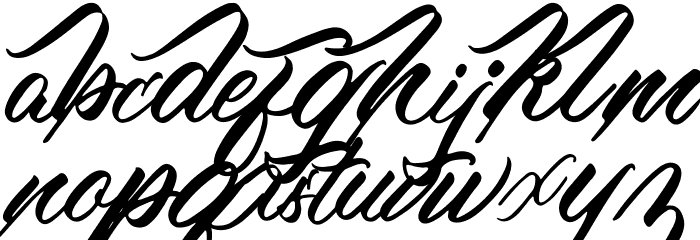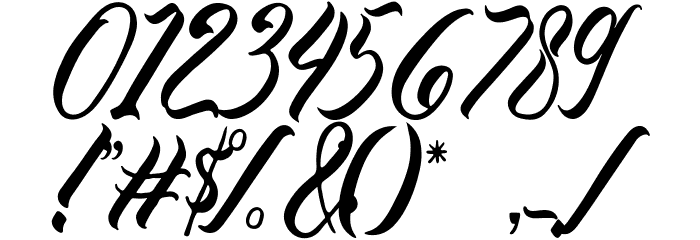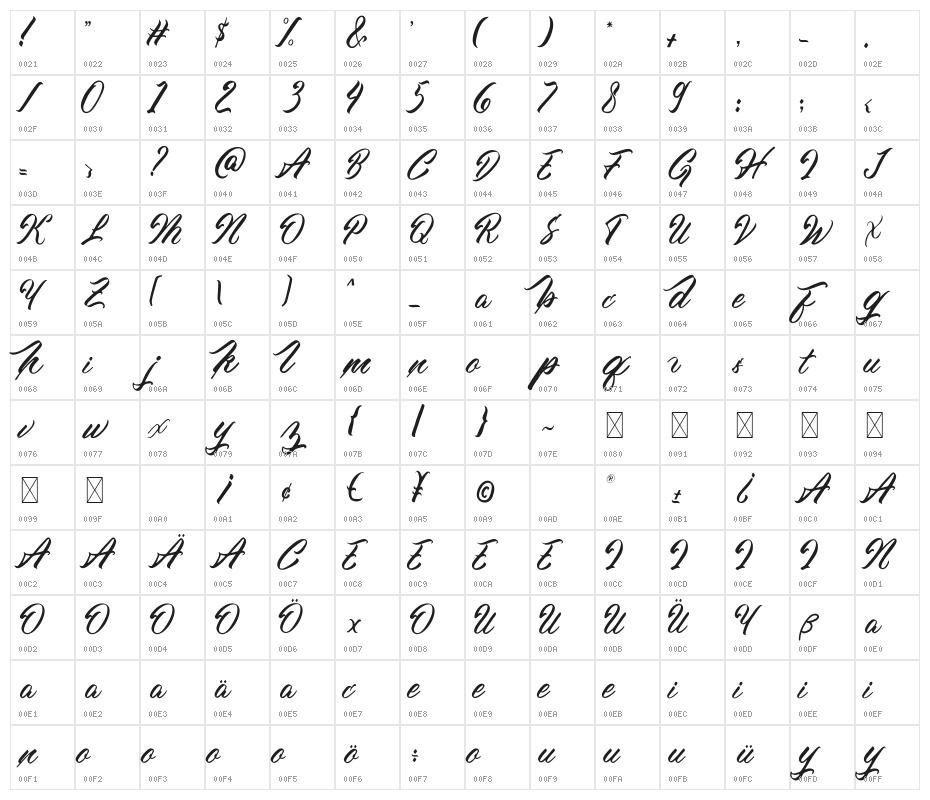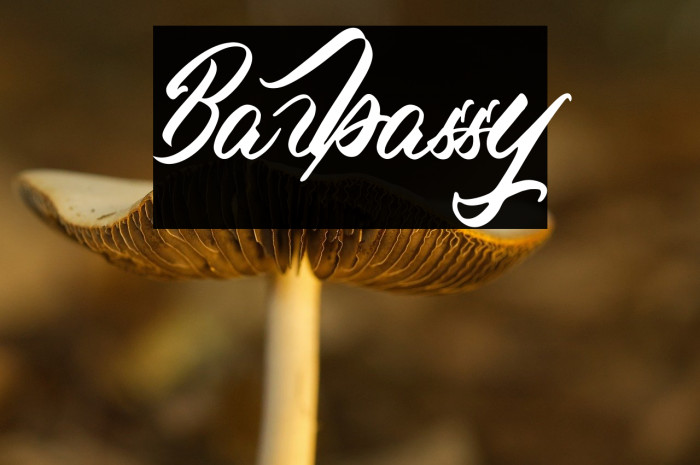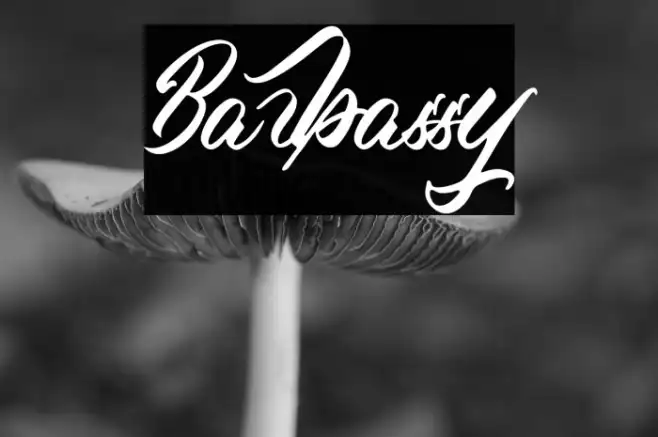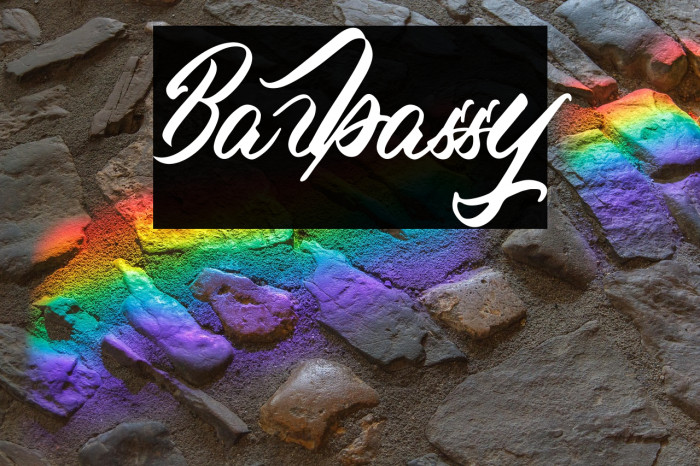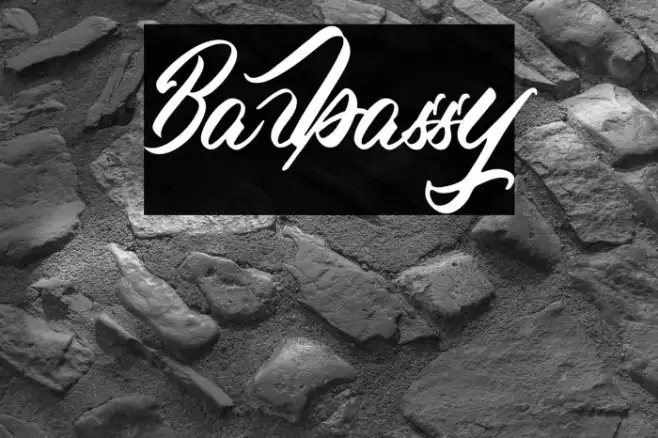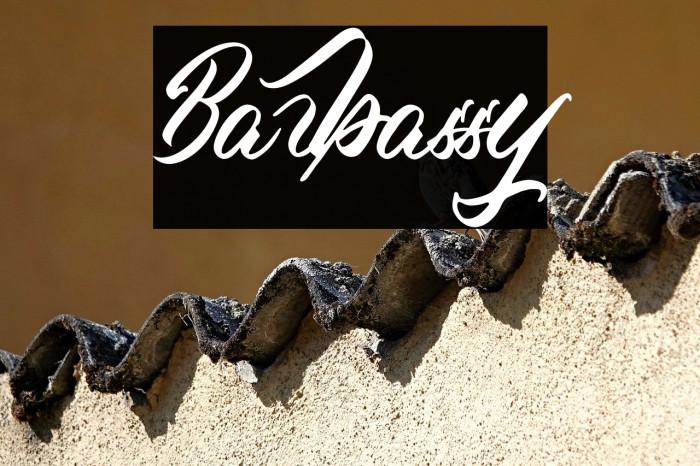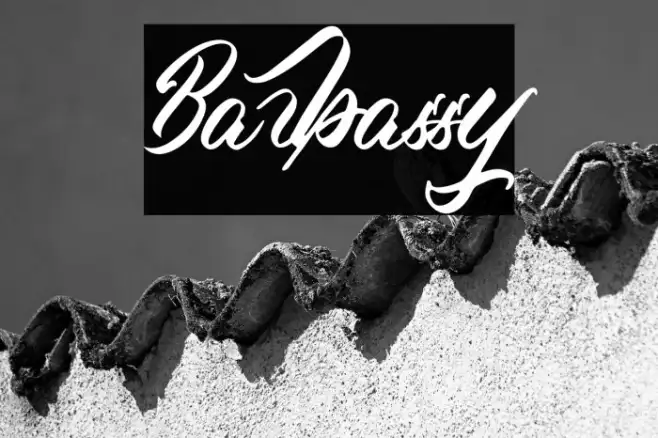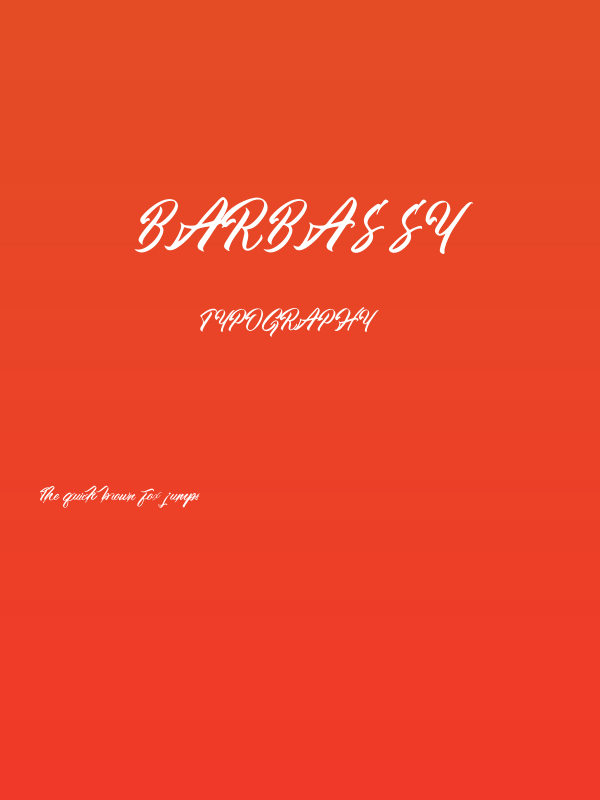
Barbassy Font
This font exhibits a dynamic and elegant script style, characterized by its fluid and cursive letterforms. The uppercase letters are bold and sweeping, with dramatic flourishes that give a sense of movement and sophistication. The lowercase letters maintain a consistent flow, with smooth connections between characters, enhancing readability while retaining an artistic flair. The numerals are equally stylized, matching the overall aesthetic with their curvaceous forms. Special characters are thoughtfully designed to integrate seamlessly with the rest of the typeface, ensuring versatility in various applications. The font's bold strokes and high contrast between thick and thin lines contribute to its striking appearance, making it suitable for projects that require a touch of elegance and creativity.
A dynamic and elegant script font with bold, sweeping letterforms and high contrast.
- Proposed Projects: Ideal for wedding invitations, luxury branding, elegant packaging, and artistic posters.
- Overall Style: Elegant, Artistic
- Use Case: Logos, Invitations, Branding